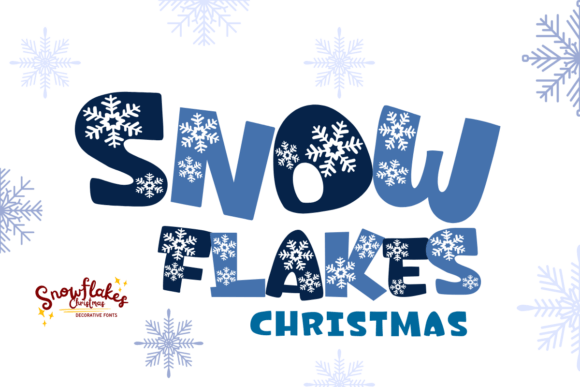
Snowflakes Christmas Font: Add a Wintery Touch to Your Holiday Messages
The holiday season is upon us, and with it comes the joy of sending out Christmas cards, creating festive decorations, and spreading cheer to our loved ones. One of the most effective ways to add a personal touch to your holiday messages is by using a unique and festive font. This is where the Snowflakes Christmas font comes in – a fun and decorative font that’s perfect for bringing a wintery touch to your Christmas messages.
What is Snowflakes Christmas Font?
Snowflakes Christmas is a cheerful and bold decorative font that’s specifically designed to capture the magic of the holiday season. The letters in this font are filled with intricate snowflakes, making them perfect for creating festive holiday cards, decorations, and messages. The font’s design is playful, yet elegant, making it suitable for a wide range of applications, from Christmas cards and invitations to social media posts and website headers.
Key Features of Snowflakes Christmas Font
- Unique Snowflake Design: The letters in Snowflakes Christmas font are filled with intricate snowflakes, giving them a distinctive and festive look.
- Bold and Easy to Read: The font is bold and easy to read, making it perfect for use in a variety of applications, from large headers to smaller body text.
- Festive and Cheerful: The Snowflakes Christmas font is designed to bring a touch of festive cheer to your holiday messages, making it perfect for Christmas cards, decorations, and more.
- Versatile: The font is versatile and can be used in a wide range of applications, from digital media to print materials.
How to Use Snowflakes Christmas Font
The Snowflakes Christmas font is perfect for a wide range of applications, including:
- Christmas Cards: Add a personal touch to your Christmas cards with the Snowflakes Christmas font.
- Holiday Decorations: Use the font to create festive decorations, such as garlands, banners, and signs.
- Social Media Posts: Add a touch of festive cheer to your social media posts with the Snowflakes Christmas font.
- Website Headers: Use the font to create festive website headers and add a touch of holiday cheer to your website.
- Invitations: Use the Snowflakes Christmas font to create festive invitations for holiday parties and events.
Benefits of Using Snowflakes Christmas Font
Using the Snowflakes Christmas font can bring a range of benefits, including:
- Adding a Personal Touch: The Snowflakes Christmas font allows you to add a personal touch to your holiday messages and decorations.
- Creating a Festive Atmosphere: The font’s festive design helps to create a festive atmosphere, perfect for the holiday season.
- Standing Out: The unique design of the Snowflakes Christmas font helps you stand out from the crowd and make your holiday messages and decorations more memorable.
Tips for Using Snowflakes Christmas Font
Here are some tips for using the Snowflakes Christmas font:
- Use it Sparingly: Use the Snowflakes Christmas font sparingly to avoid overwhelming your designs.
- Pair it with Other Fonts: Pair the Snowflakes Christmas font with other fonts to create a unique and visually appealing design.
- Experiment with Colors: Experiment with different colors to find the perfect combination for your designs.
The Snowflakes Christmas font is a fun and festive decorative font that’s perfect for adding a wintery touch to your holiday messages. With its unique snowflake design, bold and easy-to-read letters, and versatile applications, this font is sure to become a favorite among designers and crafters. Whether you’re creating Christmas cards, decorations, or social media posts, the Snowflakes Christmas font is a great choice for bringing a touch of festive cheer to your designs.